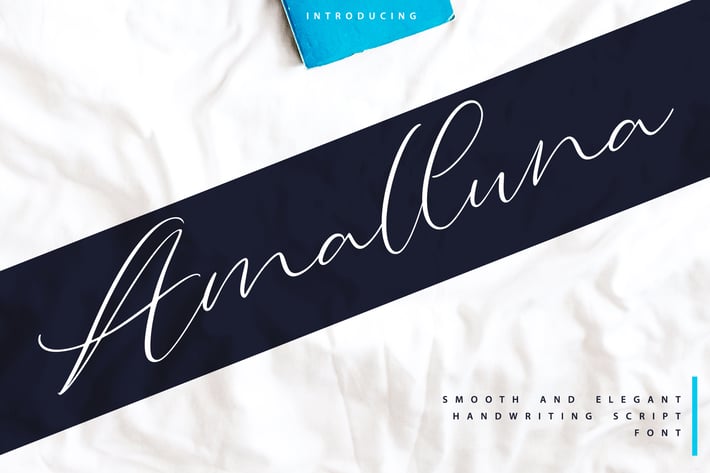
Amalluna | Handwritting Script Font
Amalluna | Handwritting Script Font with a calligraphy style, So beautiful on invitation like greeting cards, branding materials, business cards, quotes, posters, and more!